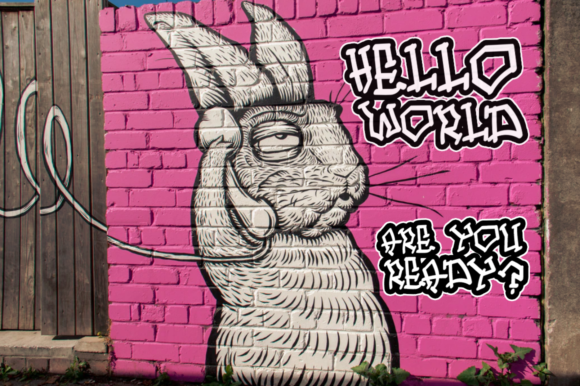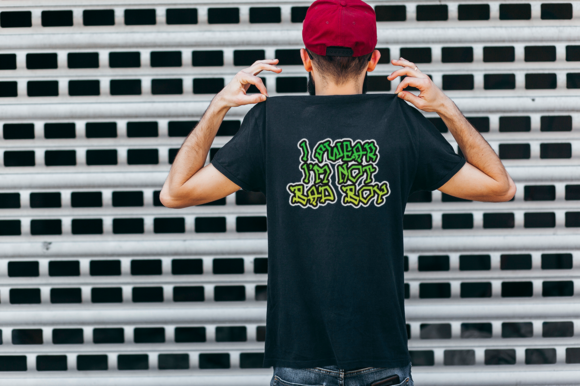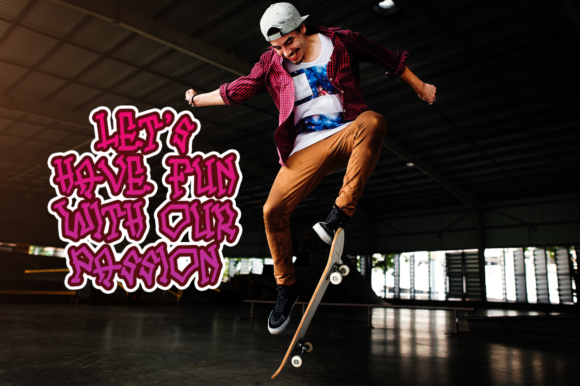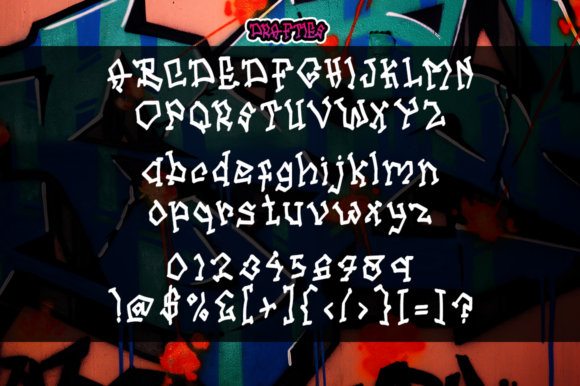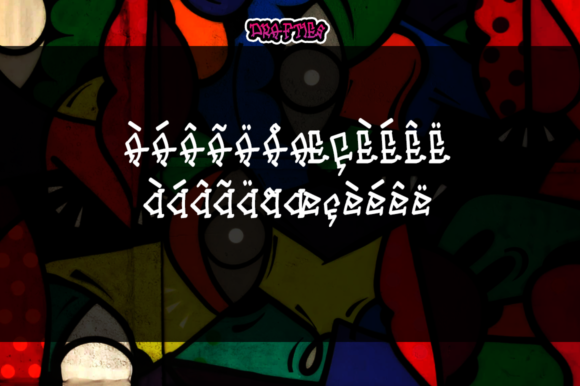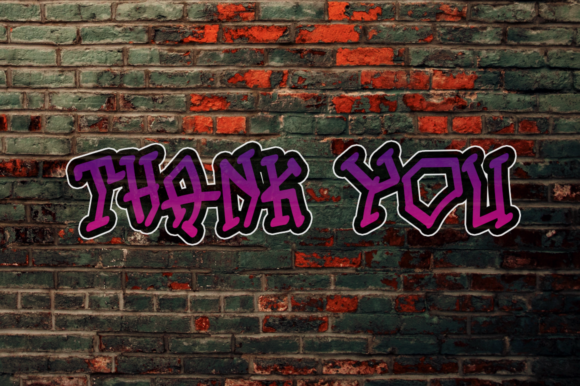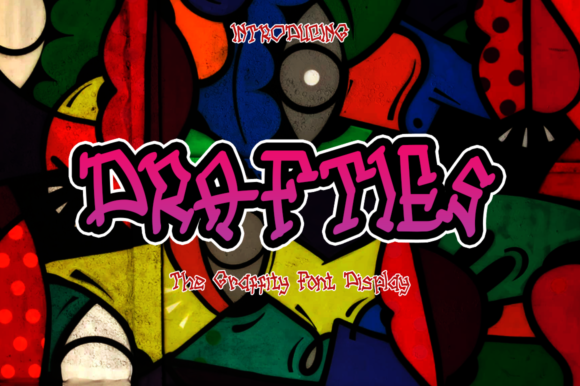
Introducing Drafties Font: The Ultimate Graffiti Styled Display Font
Are you tired of using the same old fonts in your designs? Look no further! Drafties Font is here to revolutionize your urban and casual designs with its cool, graffiti styled display font. In this article, we’ll dive into the world of Drafties Font and explore its features, uses, and benefits for designers and crafters.
What is Drafties Font?
Drafties Font is a unique and stylish display font that is perfect for adding a touch of urban flair to your designs. With its graffiti-inspired style, Drafties Font is sure to make your designs stand out from the crowd. Its bold and edgy look makes it ideal for use in a variety of design projects, from posters and banners to labels and more.
Key Features of Drafties Font
- Graffiti Styled: Drafties Font boasts a cool, graffiti-inspired style that adds an edgy touch to your designs.
- Display Font: Drafties Font is specifically designed as a display font, making it perfect for use in headlines, titles, and other prominent text elements.
- Urban and Casual: Drafties Font looks incredibly neat on a variety of urban or casual designs, making it perfect for designers who want to add a touch of street style to their work.
- Versatile: Drafties Font can be used in a wide range of design projects, from posters and banners to labels and more.
Uses of Drafties Font
Drafties Font is incredibly versatile and can be used in a variety of design projects, including:
- Posters: Add a bold and eye-catching headline to your poster with Drafties Font.
- Banners: Create a striking banner with Drafties Font that’s sure to grab attention.
- Labels: Use Drafties Font to add a touch of urban style to your labels and packaging.
- Logos: Drafties Font can be used to create a bold and edgy logo that’s perfect for urban and casual brands.
Benefits of Using Drafties Font
So why choose Drafties Font for your design projects? Here are just a few benefits of using this amazing font:
- Unique Style: Drafties Font offers a unique and stylish look that’s sure to make your designs stand out.
- Easy to Read: Despite its bold and edgy style, Drafties Font is easy to read, even at smaller sizes.
- Customizable: Drafties Font can be customized to fit your design needs, making it perfect for use in a wide range of projects.
- Time-Saving: With Drafties Font, you can create professional-looking designs in no time, saving you time and effort.
Tips for Using Drafties Font
Here are a few tips for getting the most out of Drafties Font:
- Use it Boldly: Drafties Font is designed to be used boldly, so don’t be afraid to experiment with different sizes and colors.
- Pair it with Other Fonts: Drafties Font pairs well with a variety of other fonts, so try experimenting with different combinations to find the perfect look for your design.
- Experiment with Colors: Drafties Font looks great in a variety of colors, so don’t be afraid to try out different color schemes to find the one that works best for your design.
In conclusion, Drafties Font is a cool, graffiti styled display font that’s perfect for adding a touch of urban flair to your designs. With its bold and edgy look, Drafties Font is sure to make your designs stand out from the crowd. Whether you’re a designer or crafter, Drafties Font is a must-have font for any design project. So why wait? Download Drafties Font today and start creating amazing designs!